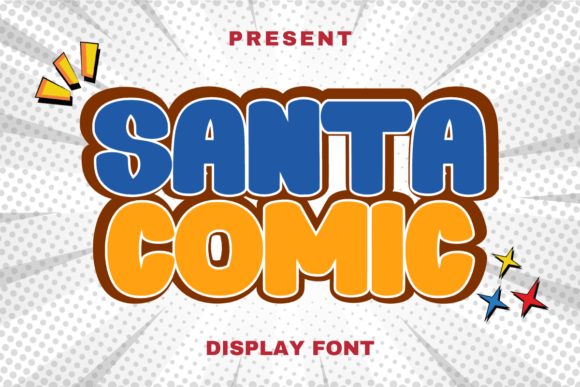
Introducing Santa Comic Font, the font that will bring joy and excitement to your creations! Created by Minimalist Eyes, this bold and fun display font is perfect for adding a touch of confidence, authenticity, and charm to any project.
Are you looking to convey your message in a unique and eye-catching way? Look no further than Santa Comic Font! This font is not only versatile but also ideal for creating captivating wedding invites. Its playful and cheerful design will instantly grab the attention of your audience, making your invites stand out from the crowd.
Imagine the smiles and excitement your guests will experience when they receive your wedding invitation, adorned with the Santa Comic Font. The bold and expressive letters will convey your love story with warmth and charm, setting the perfect tone for your special day.
But Santa Comic Font isn't just limited to wedding invites. It unleashes a world of possibilities! Whether you're designing comics, creating captivating cartoons, designing magazine covers, or developing engaging games, this font will add that extra touch of magic and cheerfulness.
With Santa Comic Font, you'll have the power to captivate your audience and leave a lasting impression. Its bold and fun design will invoke emotions of joy and excitement, making your creations truly unforgettable.
Don't settle for ordinary fonts that lack personality. Santa Comic Font is here to elevate your designs and take them to a whole new level. Infuse your projects with a sense of playfulness and charm that will leave a lasting impact on anyone who sees them.